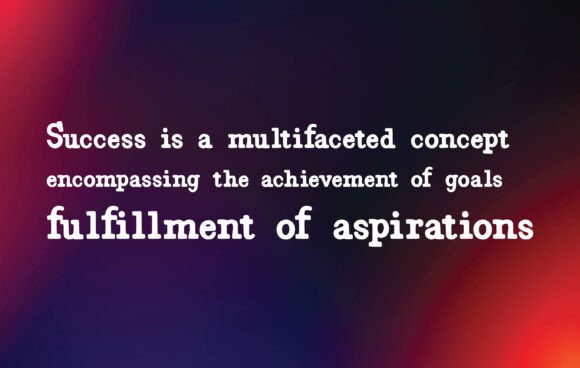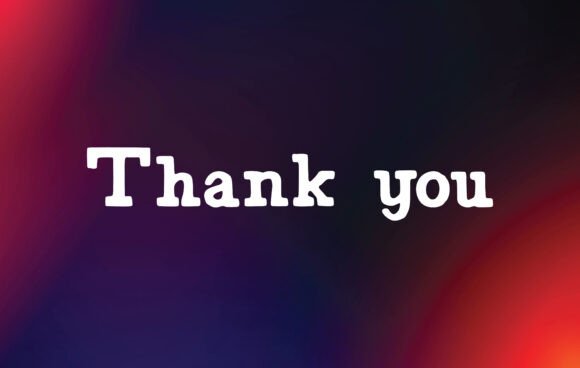
Introducing Calliope Font: Elevate Your Creative Projects with Elegance
Are you a designer, crafty individual, or simply someone who loves to dabble in creative projects? Look no further than the stunning Calliope font. This beautiful typeface has the potential to take your ideas to new heights, making it the perfect choice for creating eye-catching logos, branding, and quotes.
The Beauty of Calliope Font
Calliope font is a lovely and beautiful addition to any design project. Its elegant and refined aesthetic is sure to captivate your audience and leave a lasting impression. With its unique and distinctive style, Calliope font is the perfect choice for those looking to add a touch of sophistication and glamour to their work.
Unleash Your Creativity with Calliope
Calliope font is more than just a pretty face – it’s a versatile tool that can help you bring your creative ideas to life. Whether you’re designing a logo, creating a brand identity, or crafting a compelling quote, Calliope font is the perfect choice. Its clean lines, elegant curves, and precise lettering make it easy to read and visually stunning.
Why Choose Calliope Font?
So, what sets Calliope font apart from other typefaces? Here are just a few reasons why designers and crafters love this beautiful font:
- Elegant and Refined: Calliope font has a sophisticated and luxurious feel that’s perfect for high-end branding and design projects.
- Versatile: Whether you’re creating a logo, brochure, or social media graphic, Calliope font is the perfect choice.
- Easy to Read: Despite its elegant style, Calliope font is easy to read and understand, making it perfect for body text and captions.
- Unique and Distinctive: Calliope font has a unique and distinctive style that sets it apart from other typefaces.
Using Calliope Font in Your Design Projects
So, how can you use Calliope font in your design projects? Here are a few ideas to get you started:
- Logos and Branding: Use Calliope font to create a stunning logo or brand identity that’s sure to impress.
- Quotes and Inspirationals: Create inspiring quotes and social media graphics using Calliope font.
- Brochures and Flyers: Use Calliope font to add a touch of elegance and sophistication to your marketing materials.
- Web Design: Calliope font is perfect for web design projects, including website headers, titles, and captions.
Tips and Tricks for Working with Calliope Font
Here are a few tips and tricks to help you get the most out of Calliope font:
- Experiment with Font Sizes: Play around with different font sizes to find the perfect balance for your design.
- Pair with Other Fonts: Try pairing Calliope font with other fonts to create a unique and interesting contrast.
- Use in Combination with Images: Use Calliope font in combination with images to create a visually stunning design.
In conclusion, Calliope font is a beautiful and elegant typeface that’s perfect for designers, crafters, and anyone looking to add a touch of sophistication to their creative projects. With its unique and distinctive style, Calliope font is sure to elevate your ideas to new heights. So why wait? Download Calliope font today and start creating stunning designs that will leave a lasting impression.